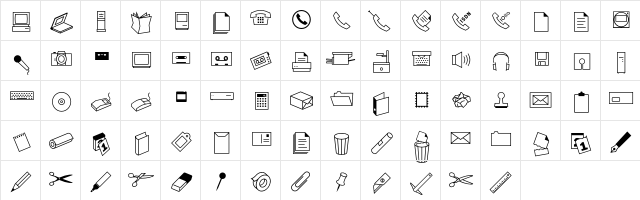
FFDingbats SymbolsOne
Design Context for FFDingbats Typeface
FFDingbats is a composed and adaptable typeface that performs quietly and consistently across a wide range of design contexts.